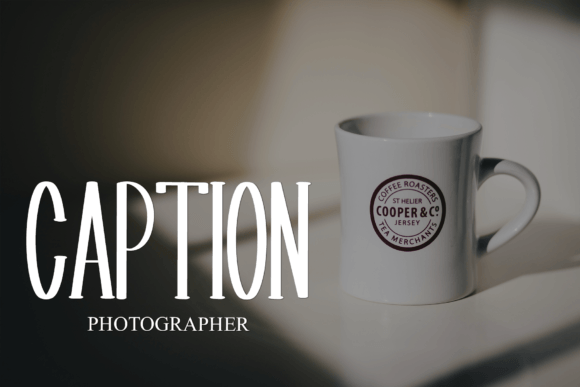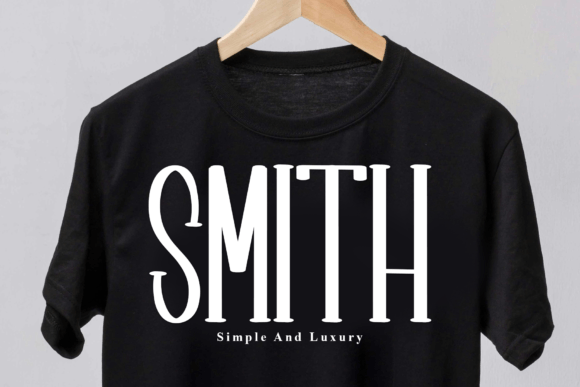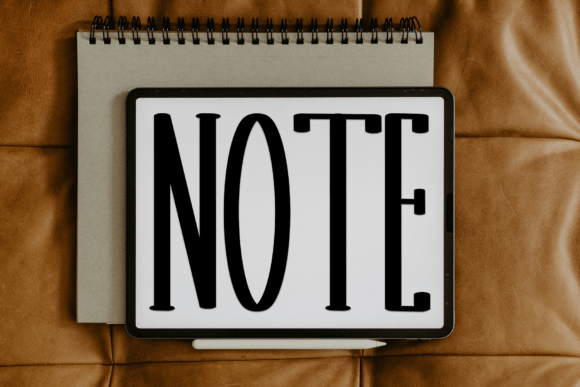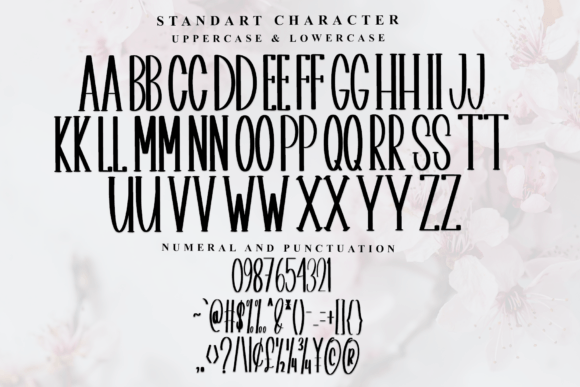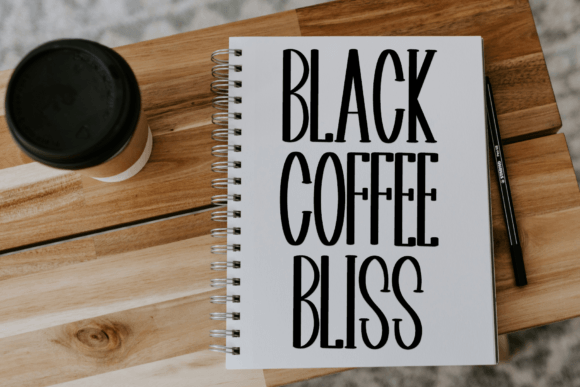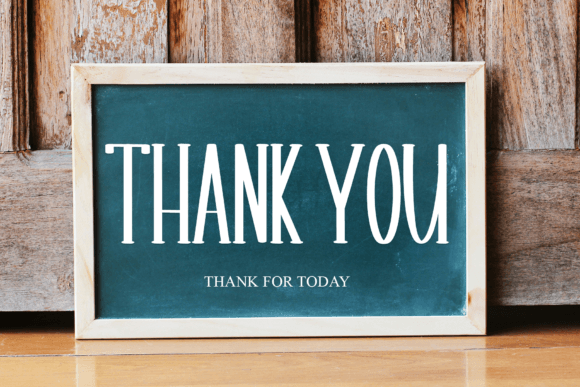
Introducing Antumn Blackboard Font: The Ultimate Holiday Typeface
As the holiday season approaches, designers and crafters are on the lookout for the perfect typography to add a touch of magic to their projects. Look no further than Antumn Blackboard Font, a festive and merry typeface that captures the spirit of Christmas and makes it easy to create enchanting designs.
A Festive and Whimsical Typeface
Antumn Blackboard Font is a decorative typeface that embodies the whimsy and wonder of the holiday season. Its unique design elements and playful flair make it perfect for adding a touch of nostalgia and cheer to your designs. Whether you’re creating greeting cards, gift tags, or holiday-themed projects, this font is sure to bring a smile to the faces of your audience.
Antumn Blackboard Font is specifically designed with the holiday season in mind. Its decorative elements and festive flair make it perfect for a wide range of projects, including:
- Greeting cards: Create personalized and festive greeting cards that will make your loved ones feel special.
- Gift tags: Add a touch of magic to your gifts with custom gift tags that feature Antumn Blackboard Font.
- Holiday-themed projects: From invitations to party decorations, this font is perfect for any holiday-themed project.
Bringing a Cheerful and Nostalgic Ambiance to Your Words
Antumn Blackboard Font is more than just a typeface – it’s an experience. It brings a cheerful and nostalgic ambiance to your words, transporting your audience to a magical world of wonder and enchantment. With this font, you can:
- Create designs that evoke a sense of nostalgia and warmth.
- Add a touch of whimsy and playfulness to your typography.
- Make your designs stand out with a unique and festive typeface.